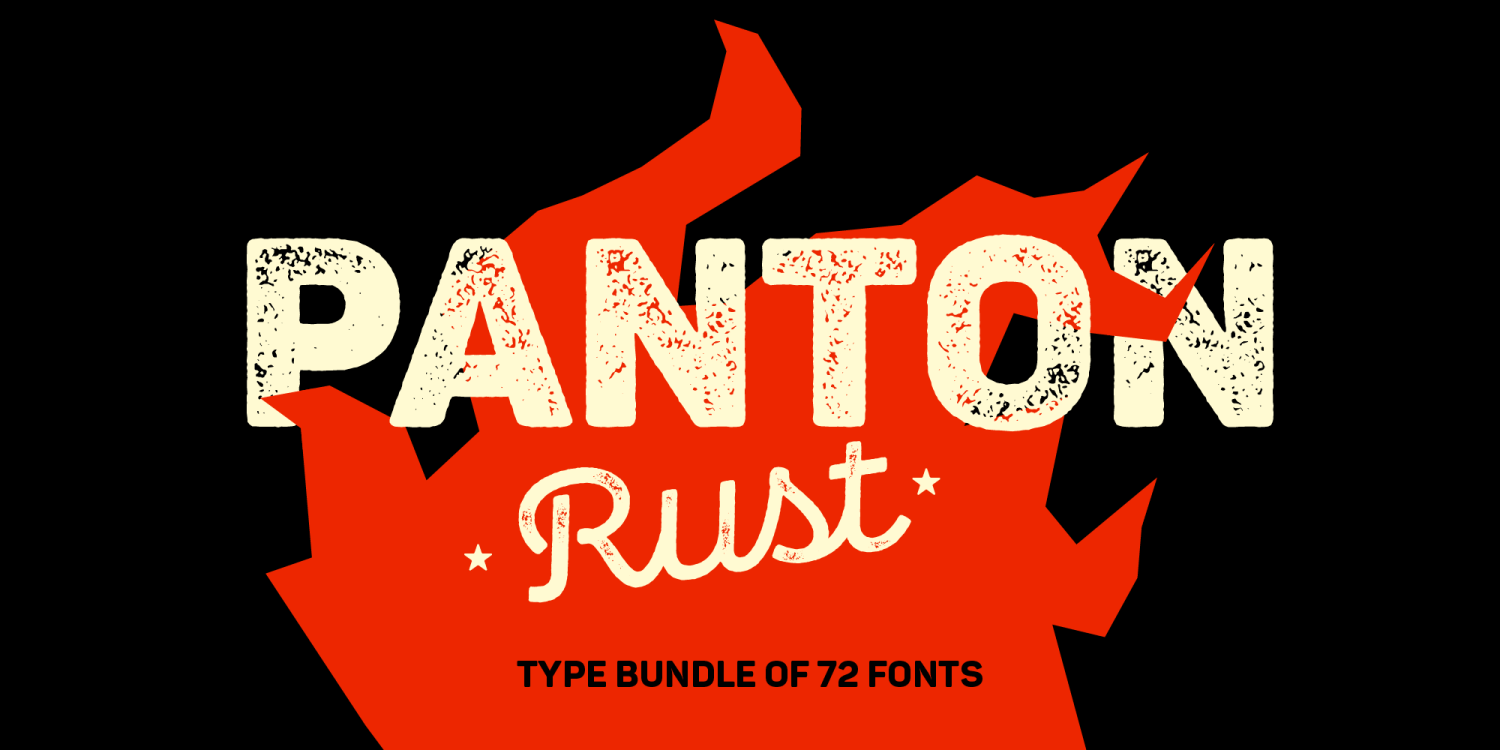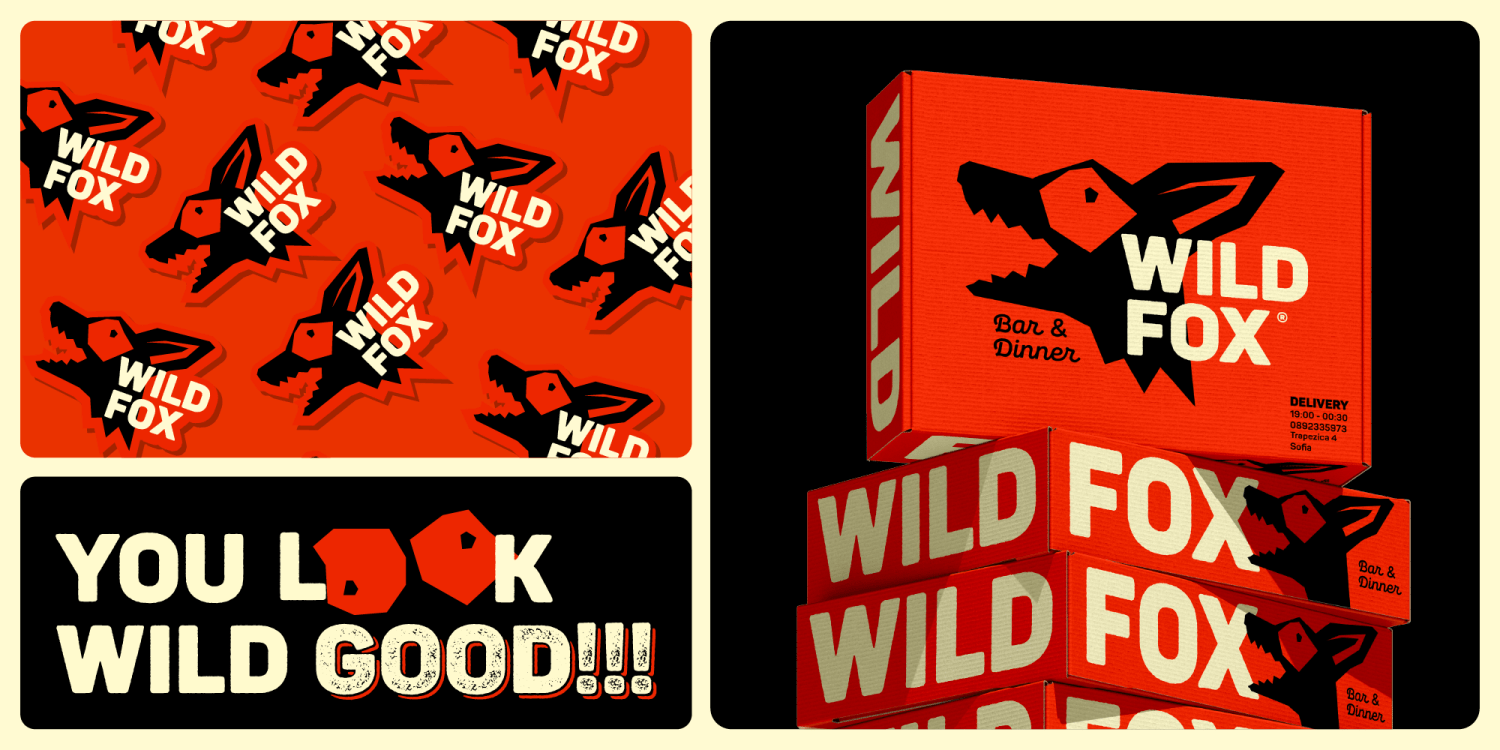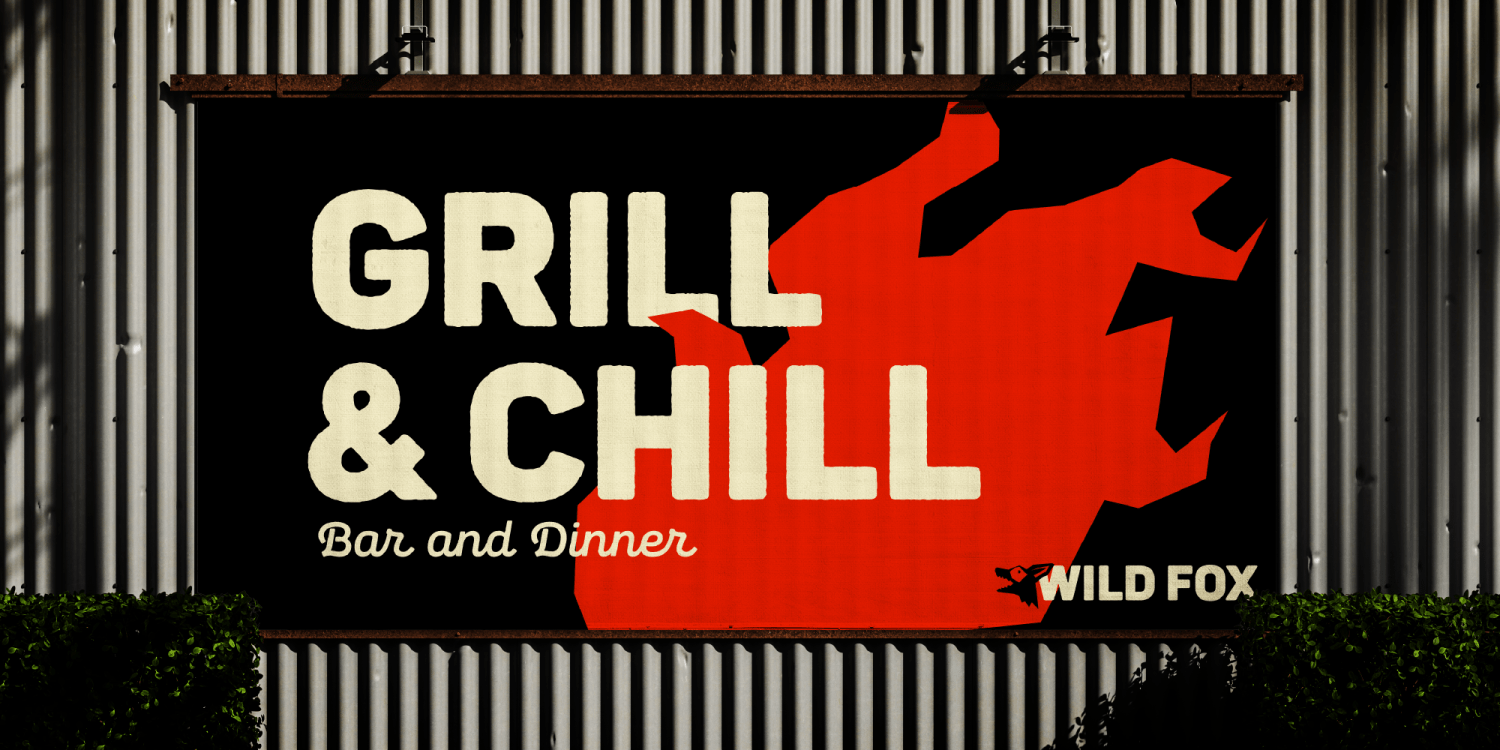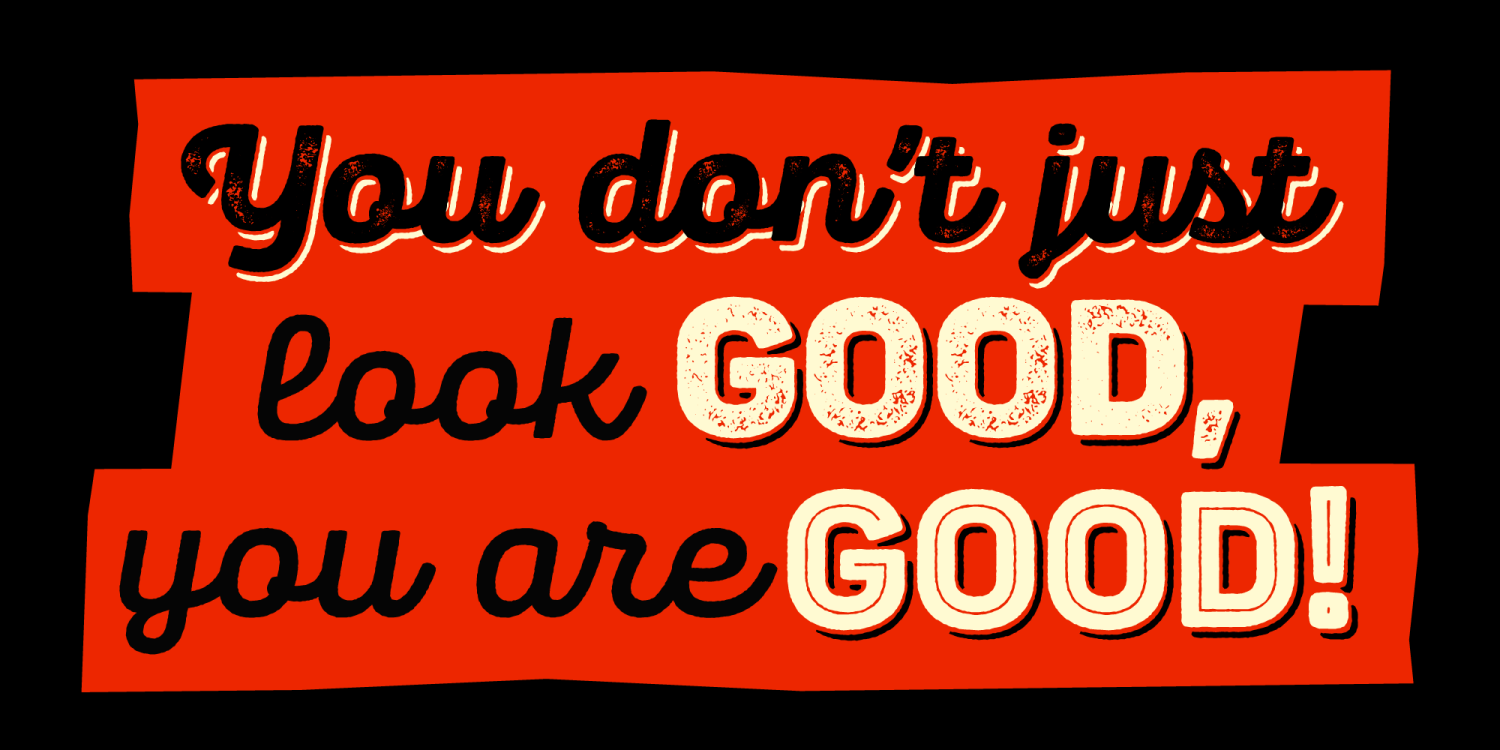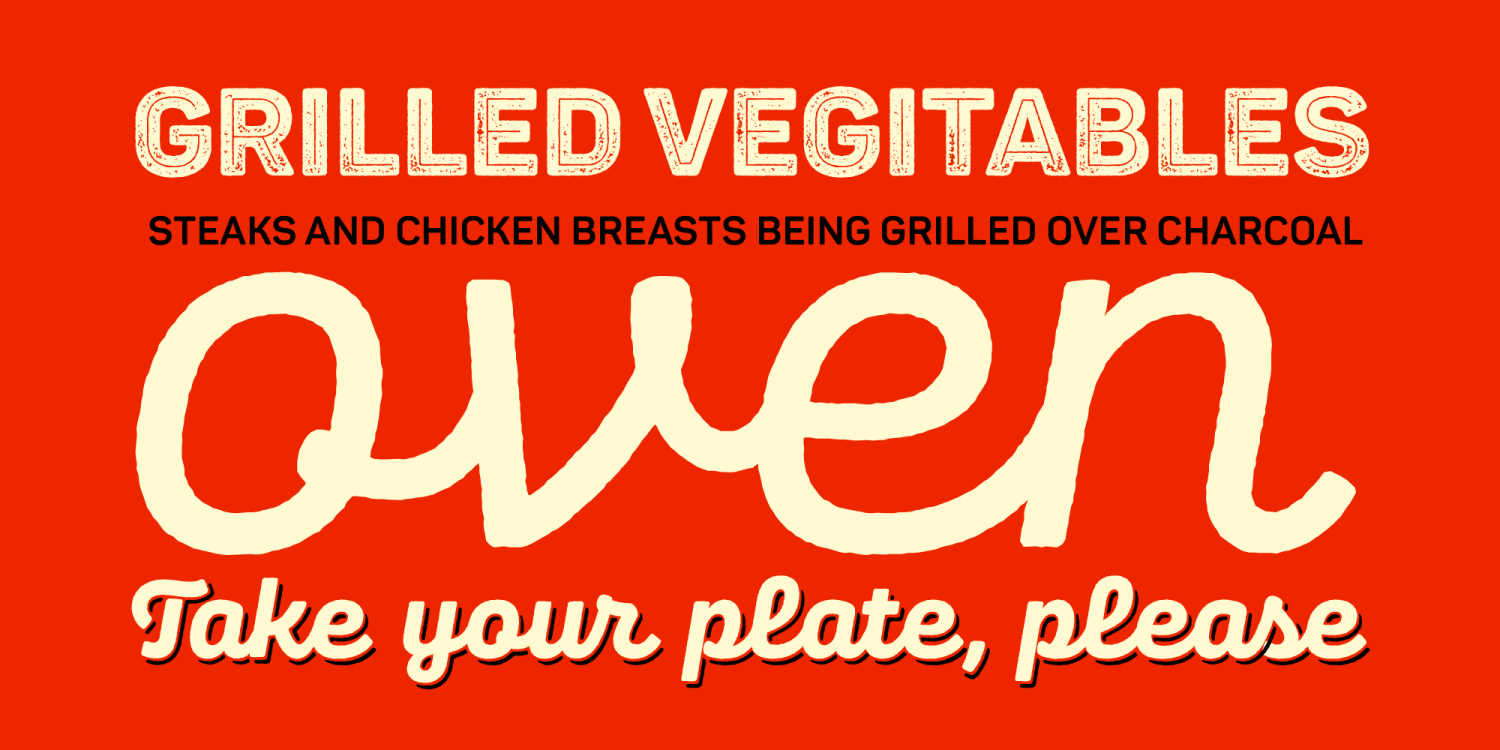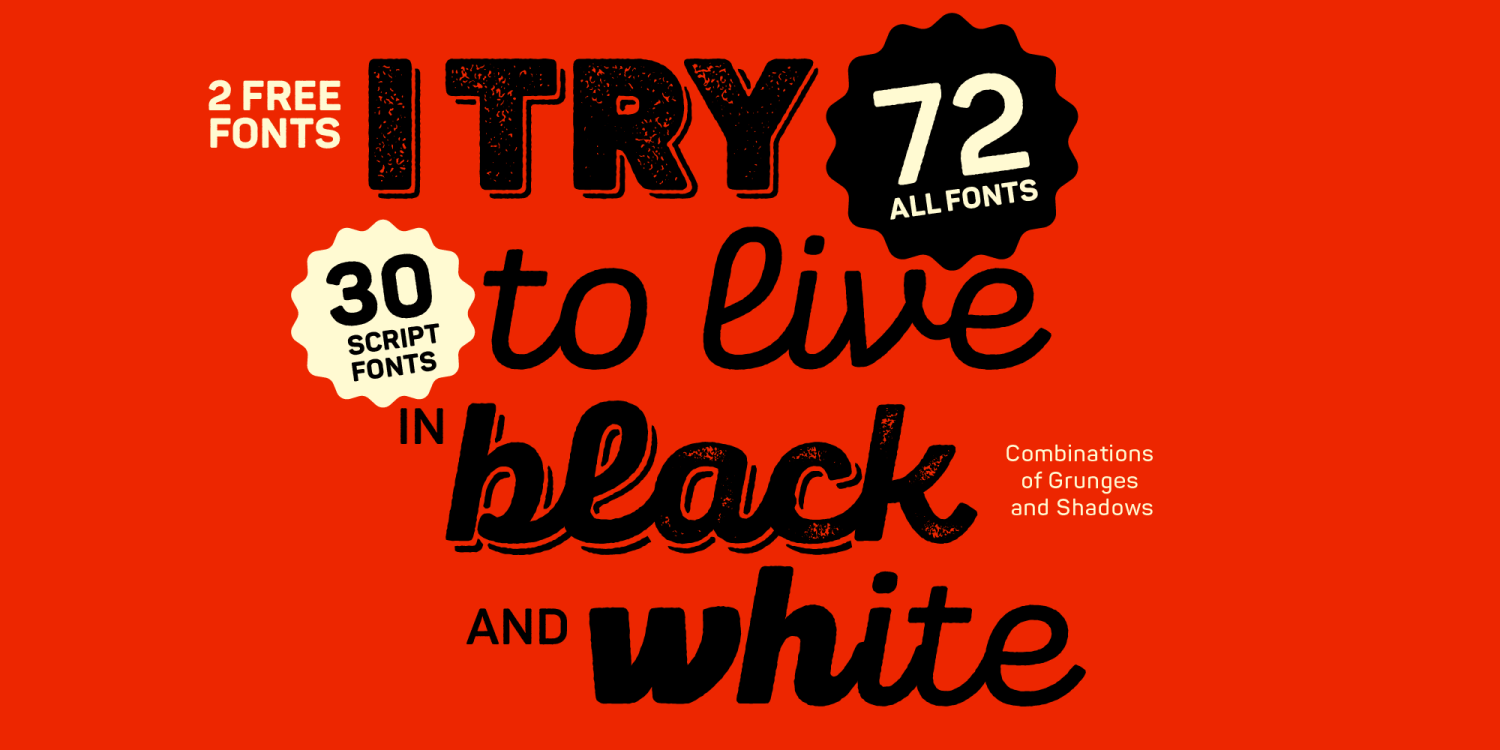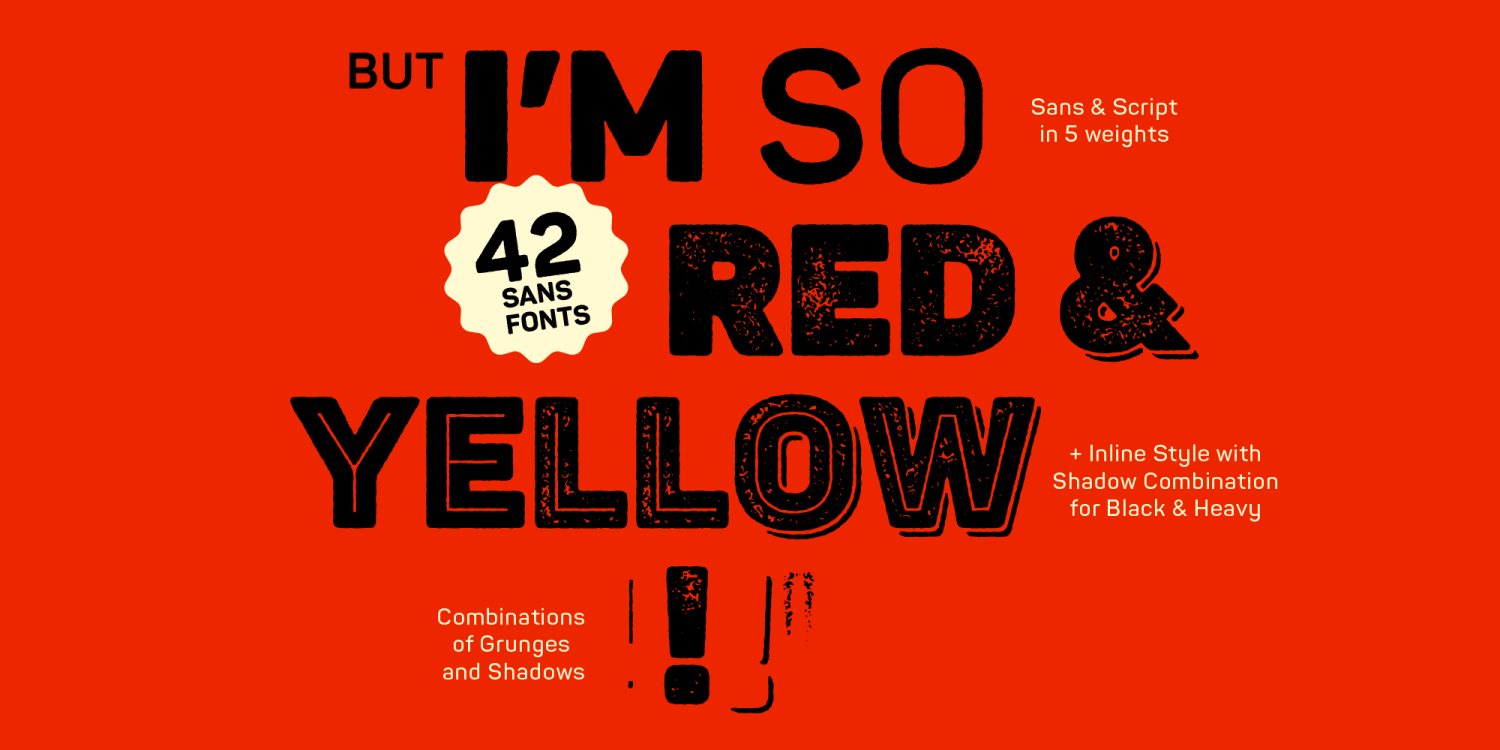
Panton Rust
Buy NowPanton Rust is a textured display typeface family designed by Plamen Motev, Stan Partalev, and Ventsislav Djokov at Fontfabric. As a companion to the original Panton family, Panton Rust delivers vintage expression and crafted character with its array of tactile textures—shadow, grunge, inline, fill, and more. This bundle includes 72 fonts in five weights (from SemiBold to Heavy), supporting Extended Latin and Cyrillic for over 130 languages.
Why Choose Panton Rust?
Panton Rust is designed for various creative projects where vintage, tactile expression is needed. It's an excellent choice for designers seeking authentic, tactile typography for crafted and vintage-themed projects.
Whether you want to evoke retro charm or add handcrafted authenticity, Panton Rust brings a bold, layered look to your creative projects. Download Panton Rust today!